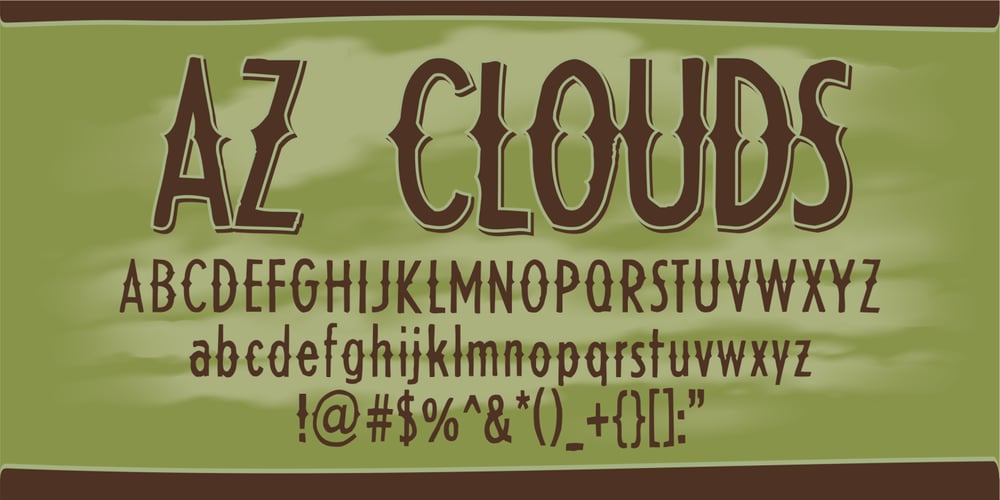
AZ Clouds
AZ Clouds font
AZ Clouds Font Family was designed by published by Artist of Design. AZ Clouds contains 1 styles and family package options. AZ Clouds was inspired from a need to develop a sans serif typeface with center accents for a t-shirt design. This font was designed for use as a fun bold headline.